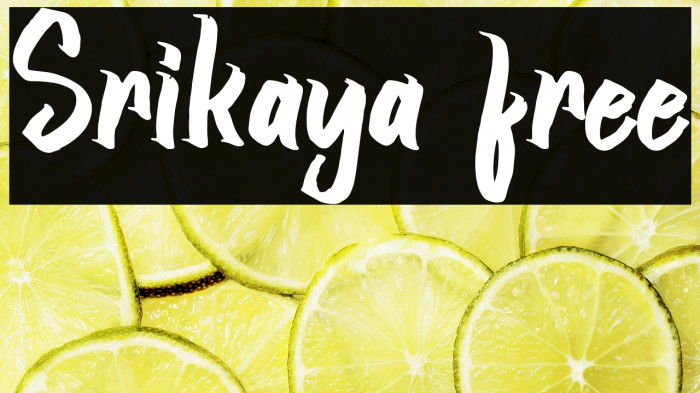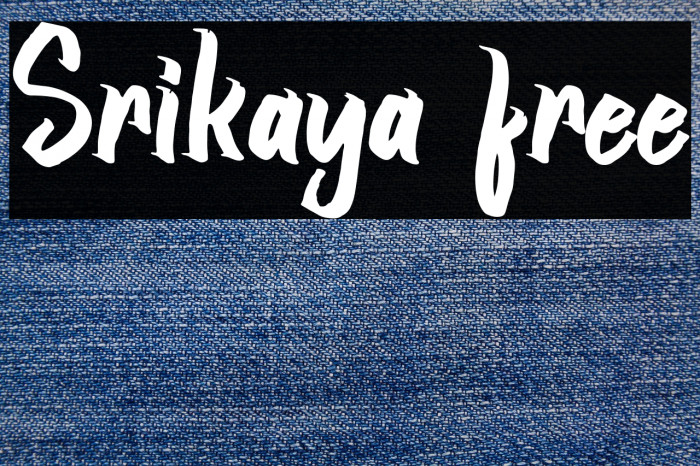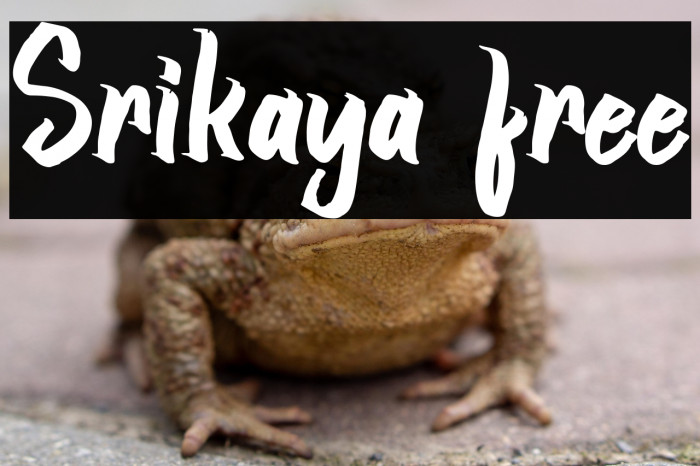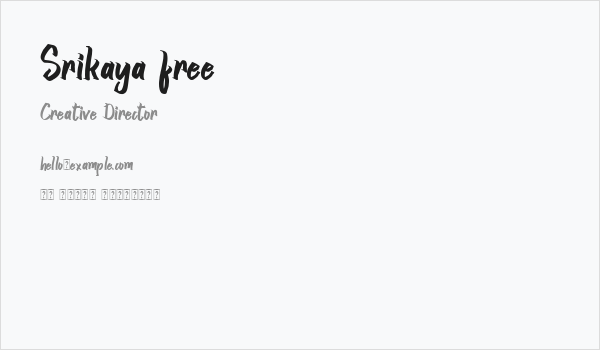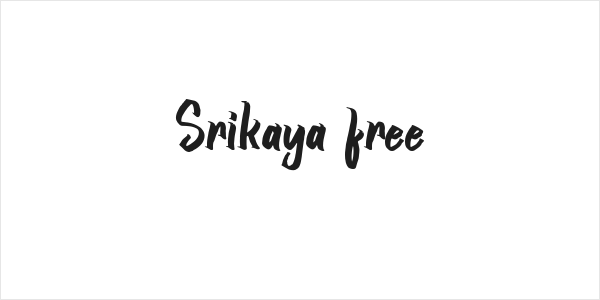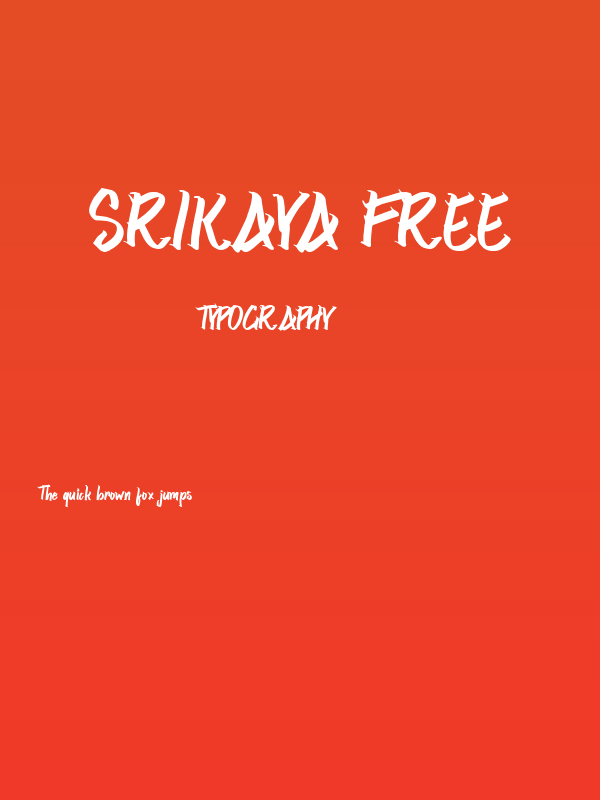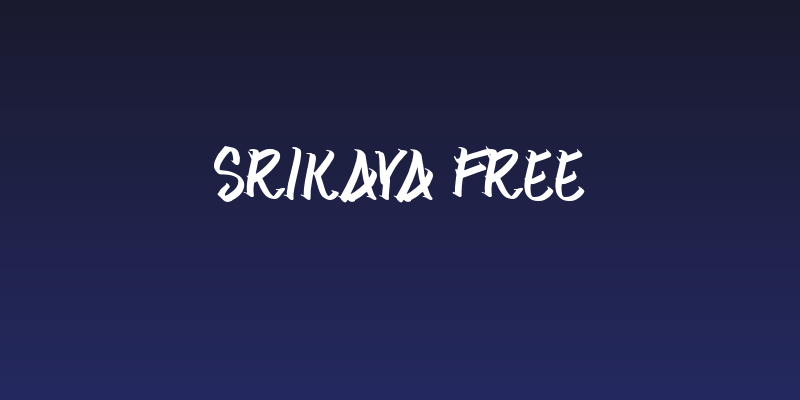
Srikaya free Font
Srikaya free Description
This font features a bold, expressive style with a handwritten appearance. The strokes are thick and dynamic, giving it a lively and energetic feel. The uppercase and lowercase letters are crafted with a sense of movement, often with exaggerated curves and angles that add to its unique character. The font maintains a consistent weight throughout, with a slightly rough texture that enhances its organic look. It is well-suited for projects that require a personal touch or a creative flair, such as posters, invitations, or branding materials. The overall design is both modern and artistic, making it a versatile choice for various applications.
| Proposed Projects | Ideal for posters, invitations, branding materials, and any project needing a personal touch. |